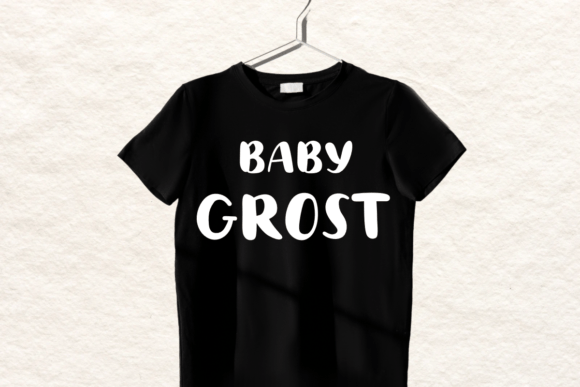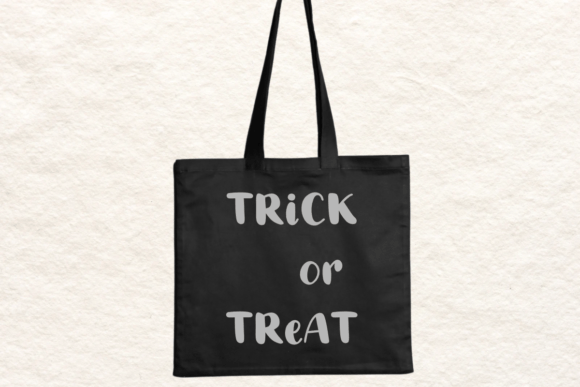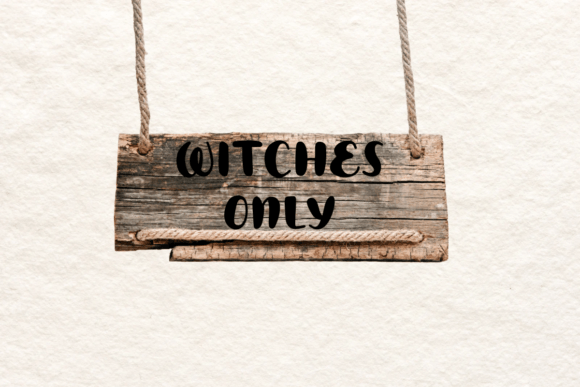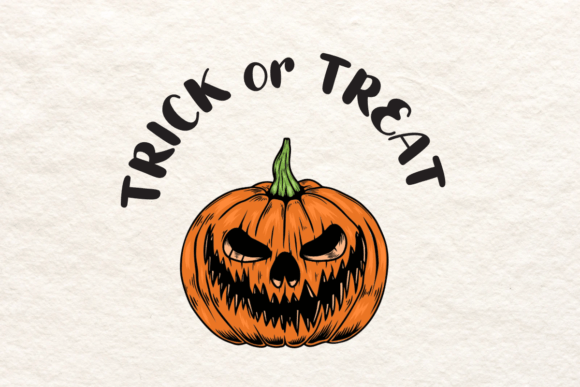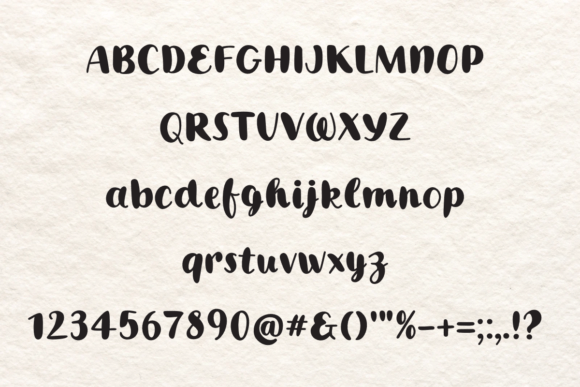
Get Ready to Cast a Spell with the Halloween Party Font
There’s something magical about the moment when the sun sets on Halloween night, and the air is filled with the excitement of trick-or-treaters and spooky decorations. As designers, we know that capturing this essence in our work can be a thrilling challenge. That’s why we’re excited to introduce you to the perfect companion for your Halloween projects: the Halloween Party Font.
This delightful handwritten display font is more than just a pretty face – it’s a key to unlocking your creativity and adding a playful, festive touch to your designs. Whether you’re crafting banners, mugs, cards, or social media posts, the Halloween Party Font is the perfect choice to make your projects stand out from the crowd. Its versatility and charm make it a valuable addition to any designer’s toolkit.
Halloween Party Font Key Features
- Unique Characteristics: The Halloween Party Font features spooky and playful characters, including jack-o-lanterns, bats, spiders, and other Halloween-themed icons.
- Character Set: The font includes a wide range of characters, including uppercase and lowercase letters, numbers, punctuation marks, and special symbols, making it suitable for various design applications.
Halloween Party Font Review
I recently had the chance to work with the Halloween Party Font, and I wanted to share my honest thoughts on it.
- The font’s primary use case – creating spooky and playful designs for Halloween-themed projects – it truly excels at.
- The variety of characters, including unique symbols and accents, adds to the font’s charm and versatility.
- The bold and cursive styles available make it easy to create contrasting and eye-catching text effects.
- The font’s overall aesthetic may be too gaudy or kitschy for some users, which could detract from its overall effectiveness.
- The lack of a clear, consistent color palette means designers will need to spend extra time selecting and applying colors to ensure a cohesive look.
The Halloween Party Font is a fun and playful addition to any designer’s toolkit. While it may not be the best choice for every project, it shines when used for Halloween-themed designs. With a little creativity and attention to detail, designers can create truly spooky and captivating designs with this font.
Here are some tips to help you get the most out of the Halloween Party Font:
- Use it in bold and italic styles to add emphasis to your text.
- Combine it with other Halloween-themed graphics and images for a spooky effect.
The Halloween Party Font is perfect for:
- Halloween party invitations and decorations.
- Spooky-themed social media posts and graphics. Alternative Fonts for Halloween Designers